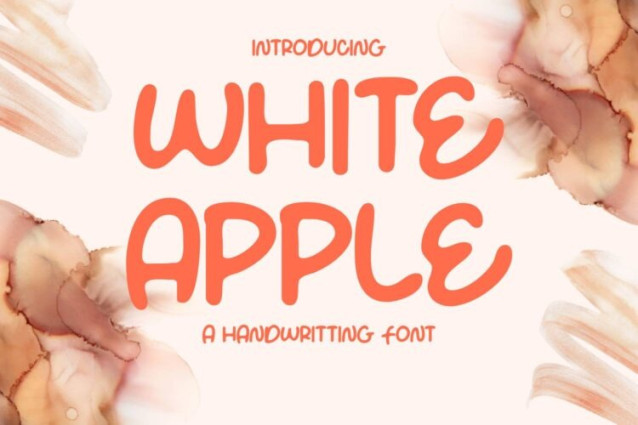
White Apple Font
White Apple Font a sweet and friendly handwritten font. Cute and fun, this font is ideal for writing wedding invitations, cards, or any other design that might need a fun touch!